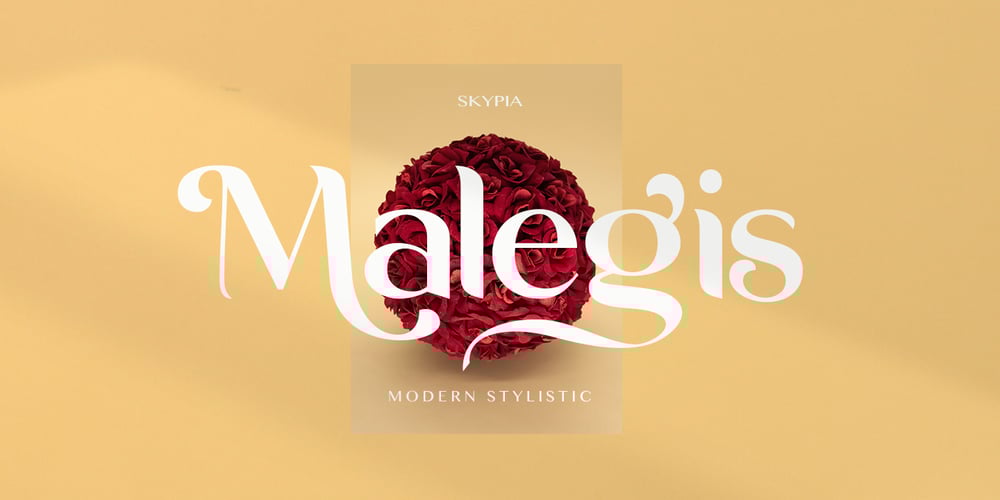
Malegis Serif
Malegis Serif font
Malegis Serif Font Family was designed by Fajarisha Phonna and published by Skypia. Malegis Serif contains 1 styles and family package options. MALEGIS SERIF is a chic + modern sans serif font.This font is perfect for branding, logos, social media, prints, stickers, shirts, svg files and more!Malegis serif is unique as it can be used for a variety of design styles. It fits in wonderfully for free-spirited, boho designs and also for more classy editorial looks!There are a lot of fun stylistic alternates available to use with this font. These letters are embedded into the font file and easily accessible in programs such as photoshop and illustrator.Thank you!Skypia